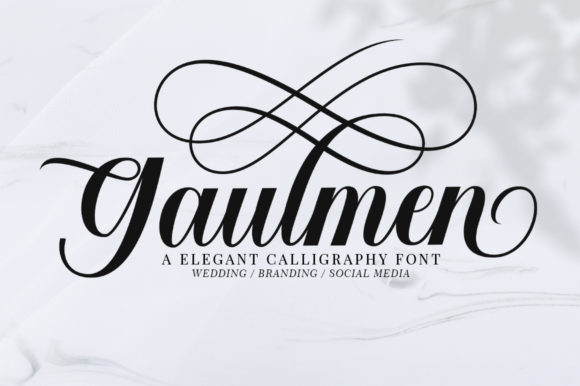
Immerse yourself in the world of Gaulmen Font, a captivating script font family that exudes freshness and playfulness, inviting you to unleash your creativity like never before. Step into a realm where your designs come alive with elegance and charm, effortlessly capturing the hearts of your audience.
With its gorgeous swashes and graceful calligraphic elements, Gaulmen Font transports you to a bygone era of timeless beauty, where every letter dances across the page with a touch of nostalgia and a hint of whimsy. Let your imagination soar as you discover the endless possibilities of this enchanting font, meticulously crafted to ignite your passion for design.
Whether you're a seasoned designer seeking inspiration or a Cricut enthusiast eager to elevate your DIY projects, Gaulmen Font is your perfect companion. Its versatility knows no bounds, effortlessly adapting to a wide array of creative endeavors, from heartfelt cards and invitations to stunning logos and branding materials.
Embrace the allure of Gaulmen Font and watch your designs transform into masterpieces that captivate and inspire. With its unparalleled charm, this font will leave an indelible mark on your creations, leaving your audience spellbound and eager for more.